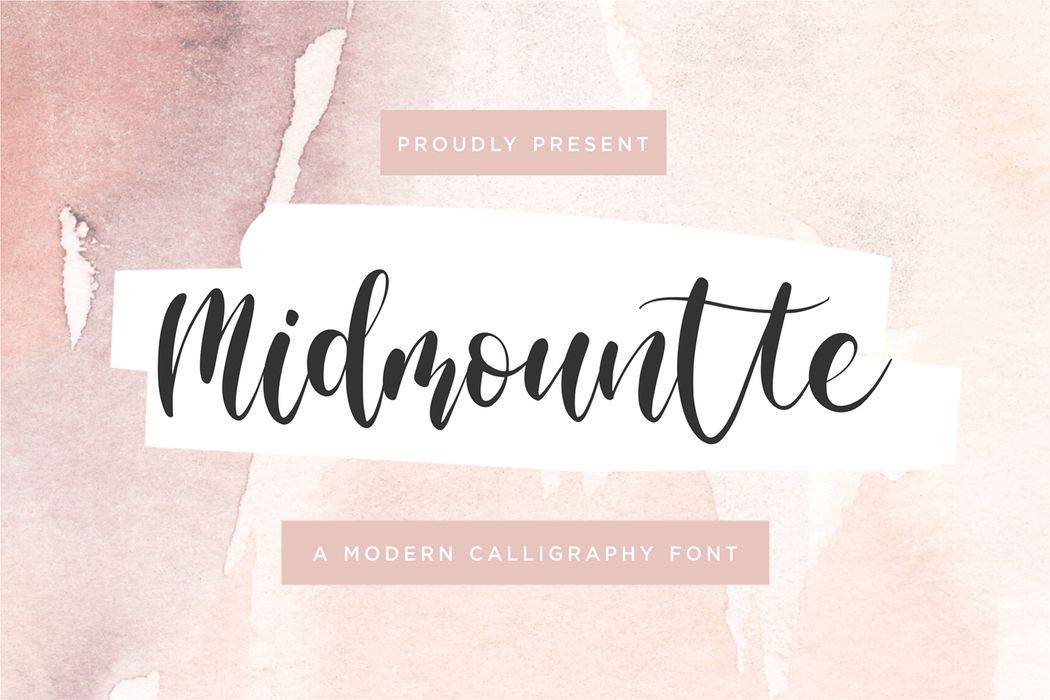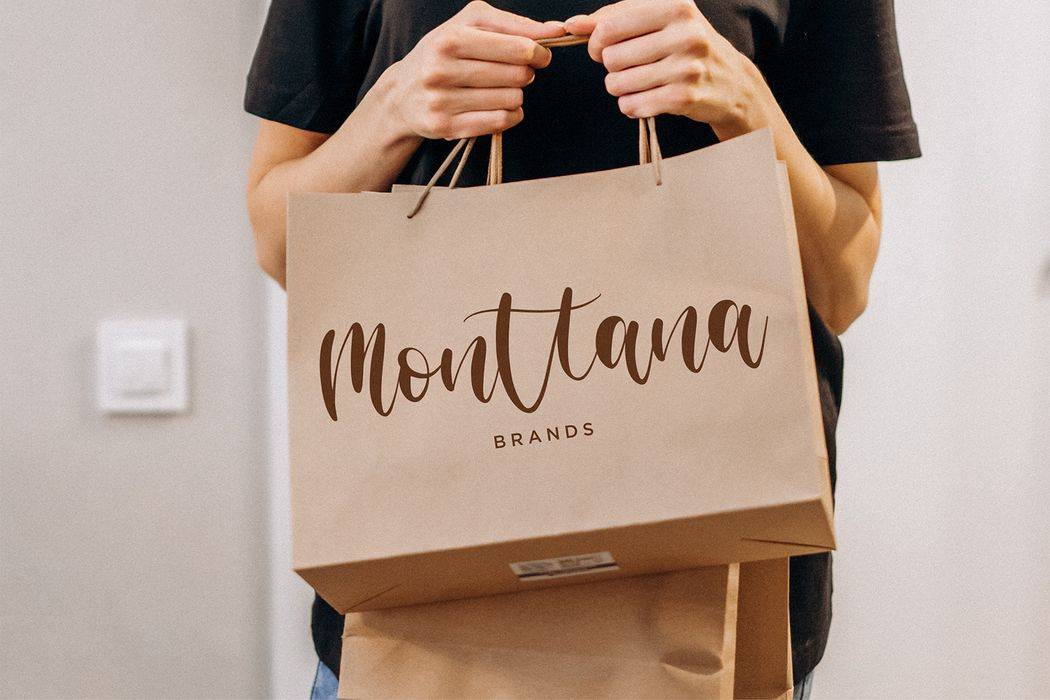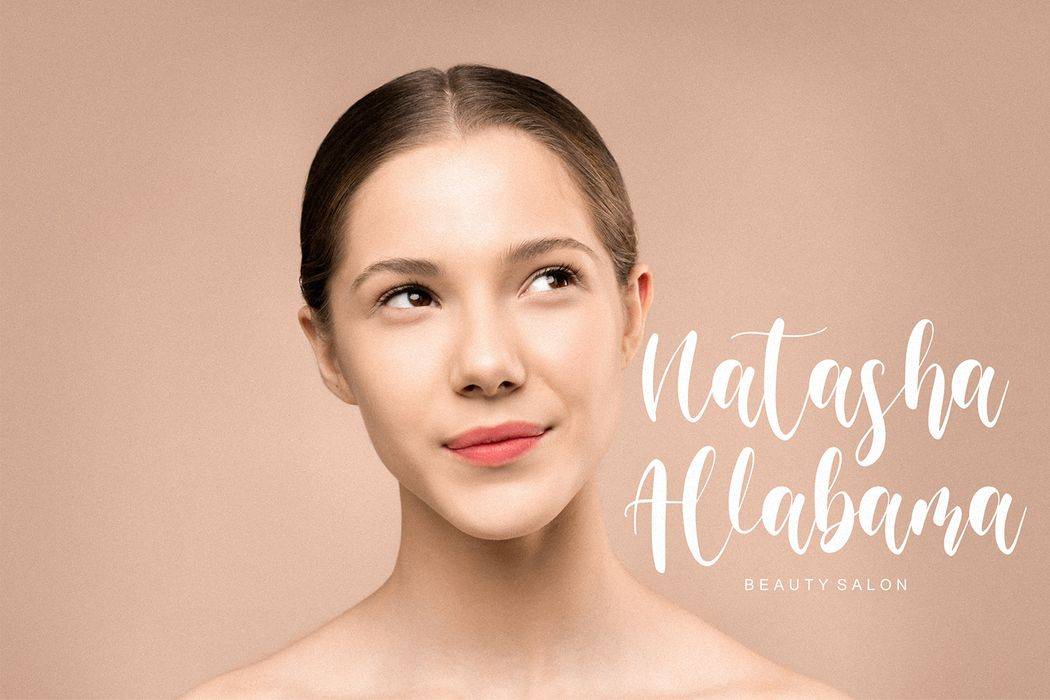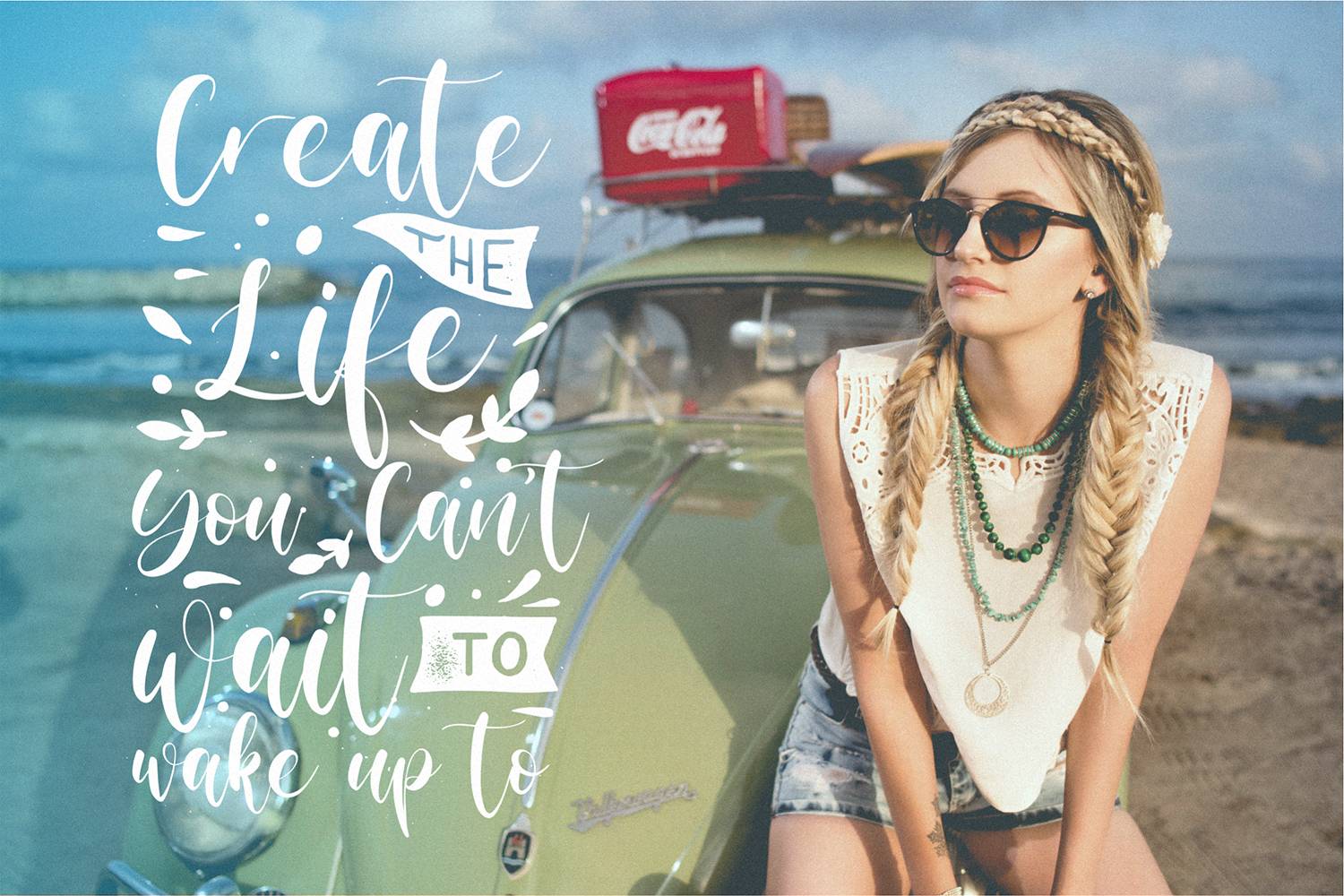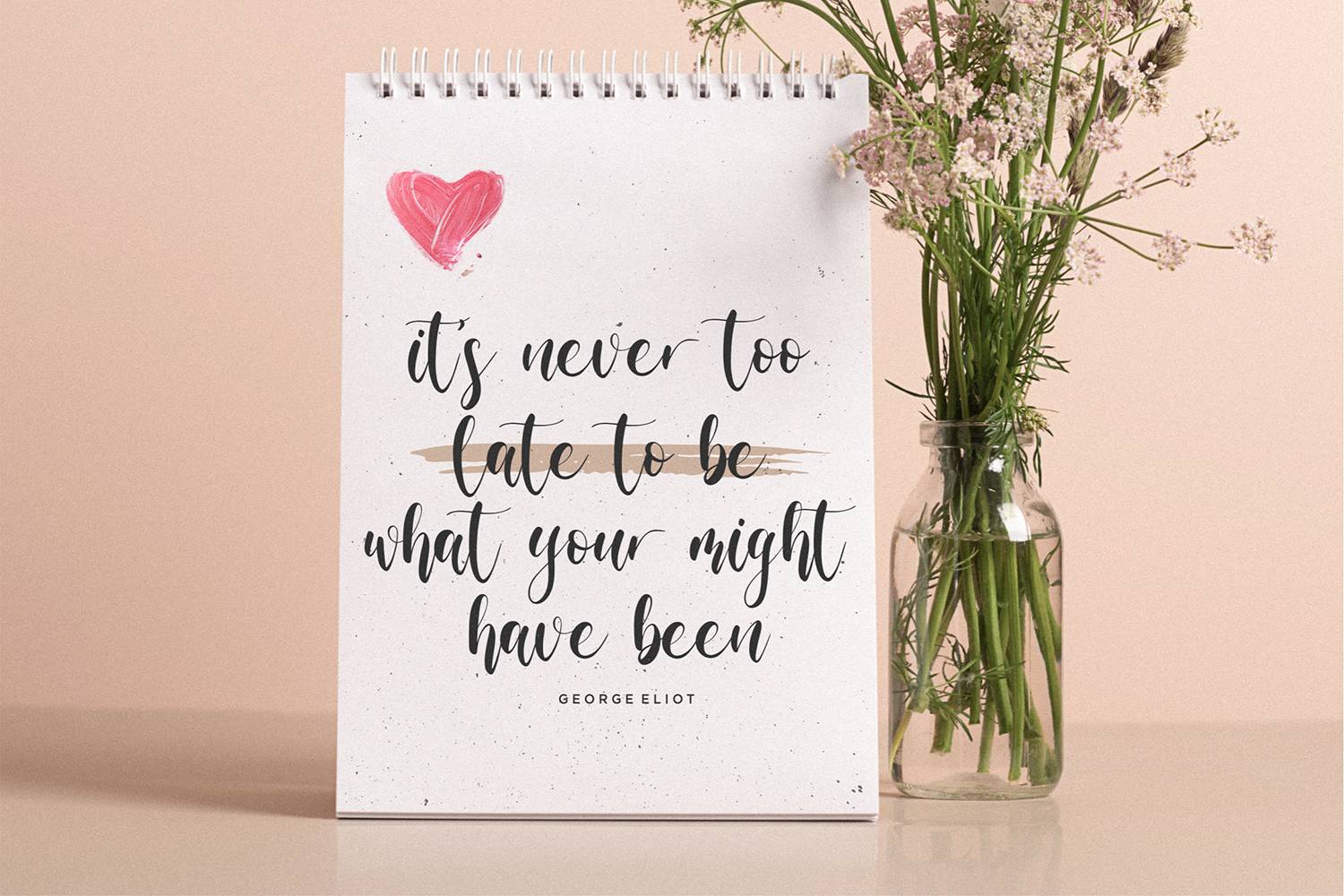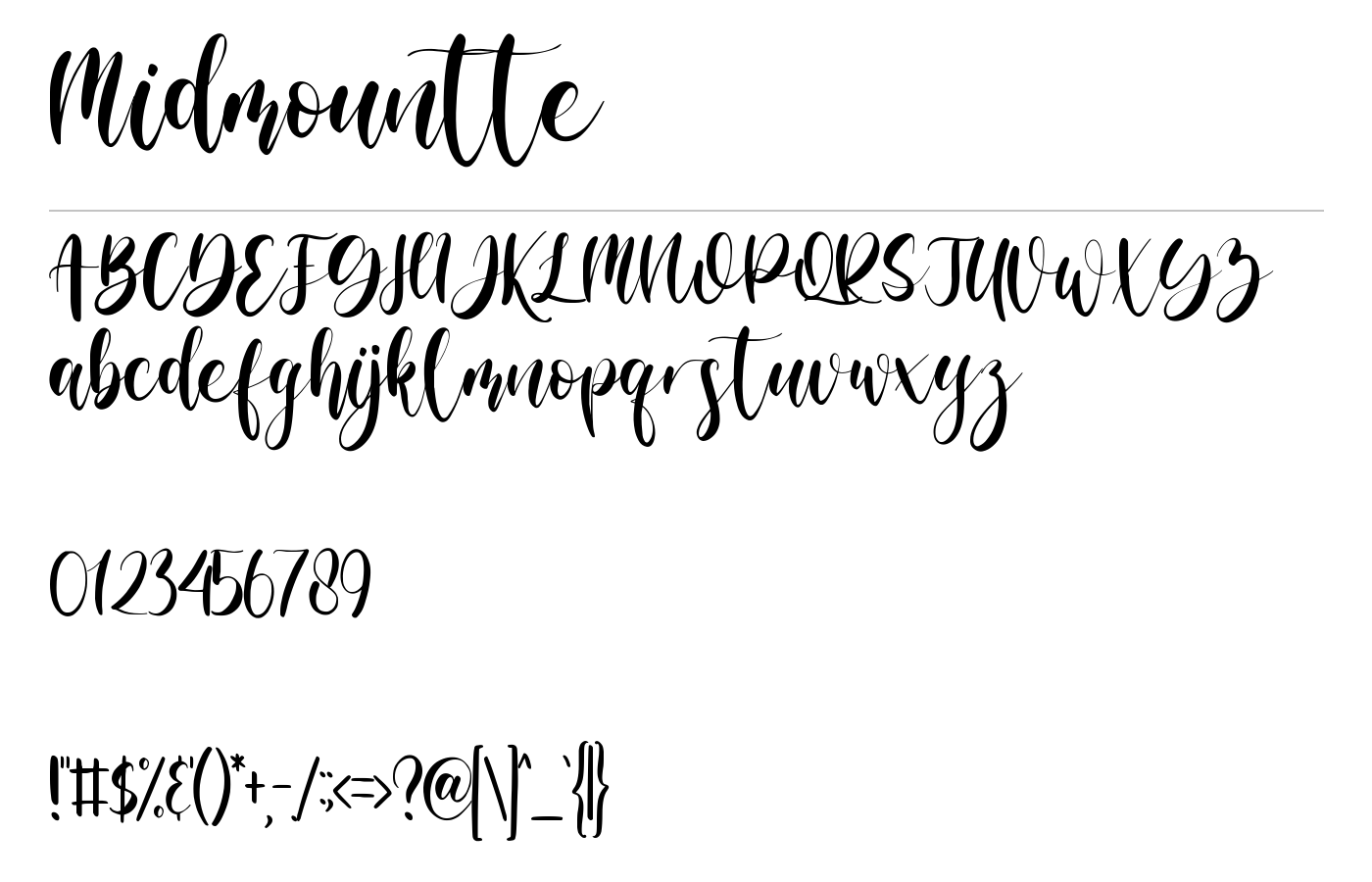
Midmountte is a lively handwritten script font featuring elegant, flowing strokes with a balanced contrast between thick and thin lines. Its tall x-height and playful letterforms make it perfect for creative branding, invitations, and stylish headlines that need a personal, artistic touch. This font blends sophistication with charm, ideal for fashion, beauty, and lifestyle projects seeking a modern yet warm appearance.
Midmountte Font
About Midmountte Font